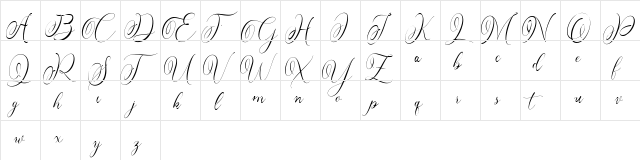
Sunchery Script
| Style | Script |
| Foundry | Sizimon |
| Designer | Faisal Tanjung |
Design Context for Sunchery Typeface
Sunchery brings a calligraphic fluidity to the page — its connecting strokes and expressive curves give it an unmistakably human quality.
Font Pairing: Combine Sunchery with a simple geometric sans for maximum contrast — the tension between flowing curves and clean structure is a classic typographic pairing.
Pro Tip: Use Sunchery for short runs of text — names, titles, or taglines. Extended body copy in script faces tires the eye quickly.